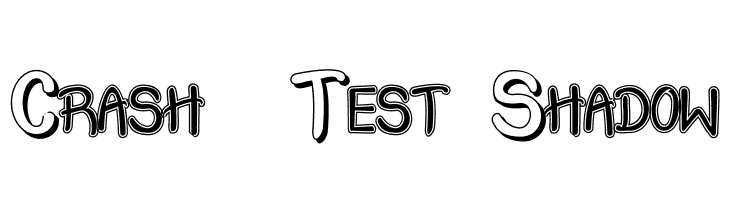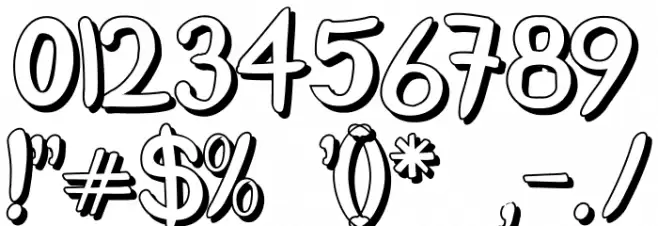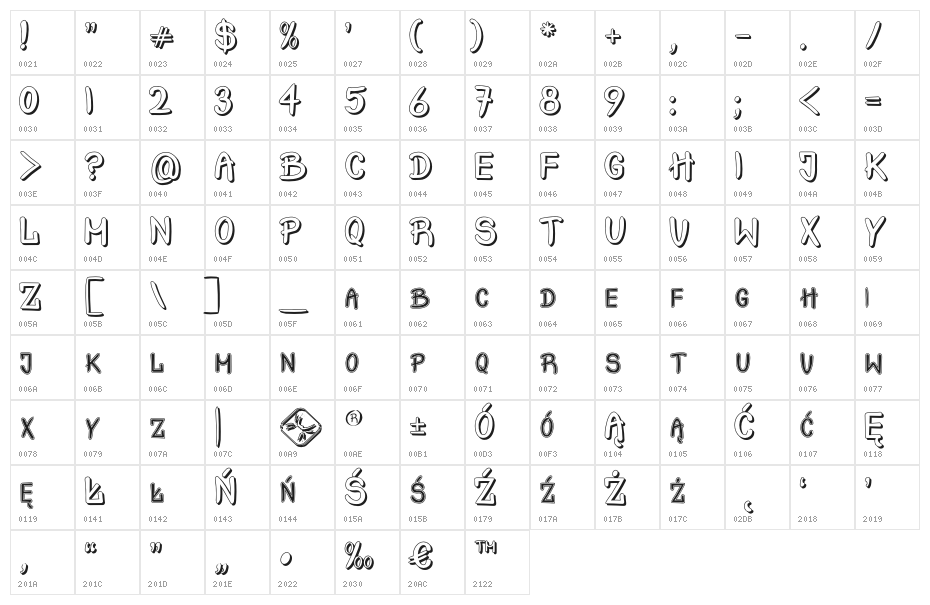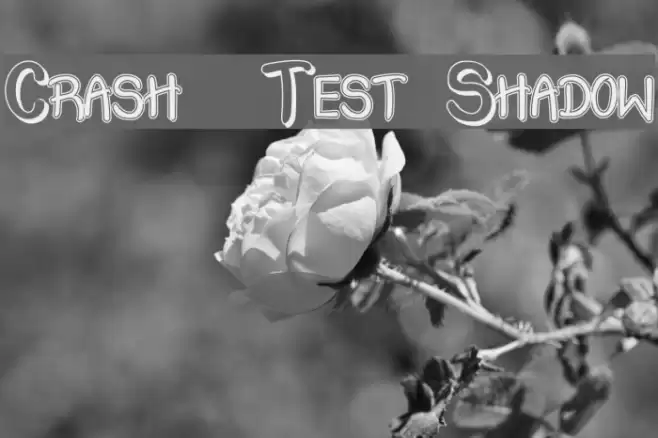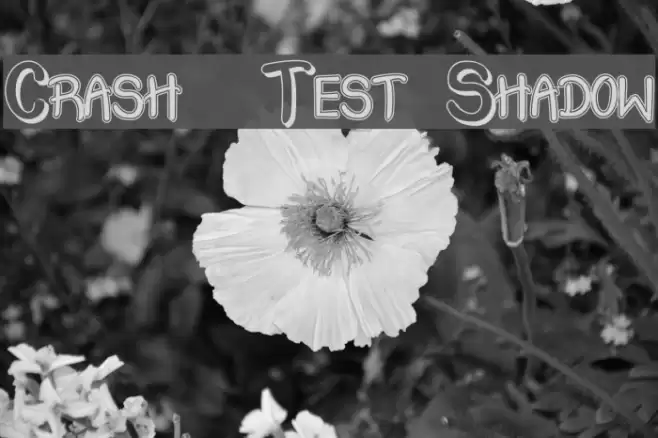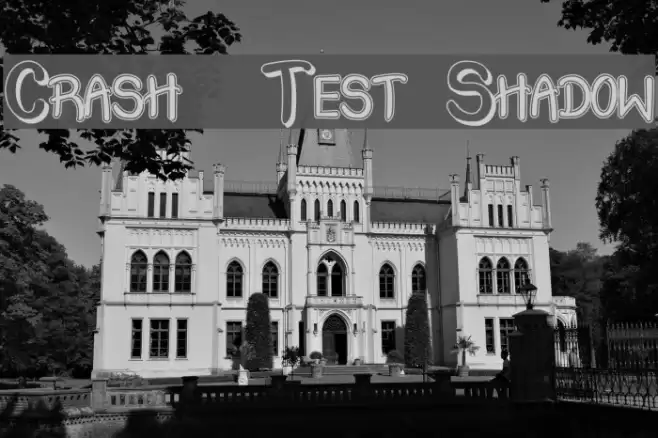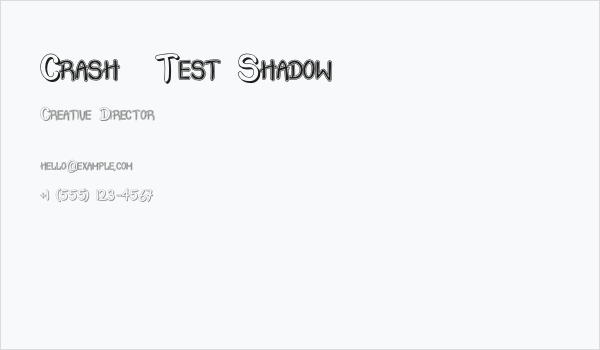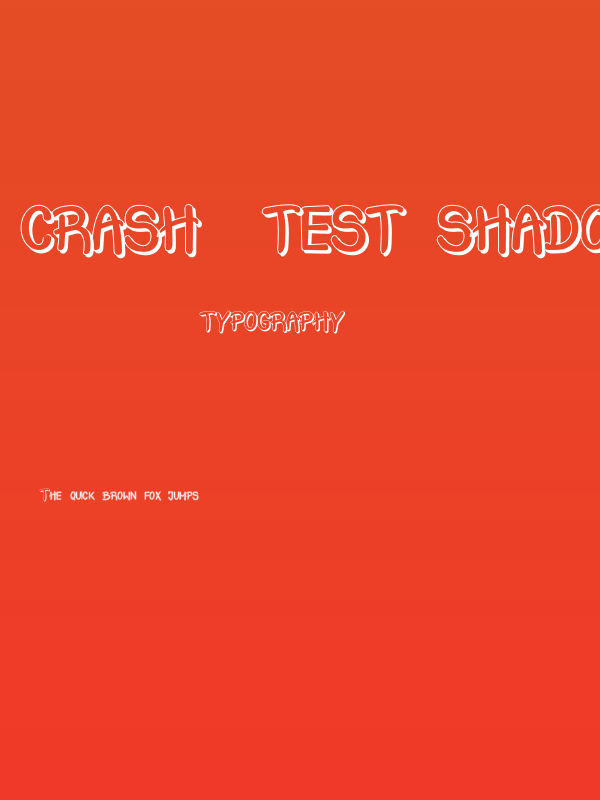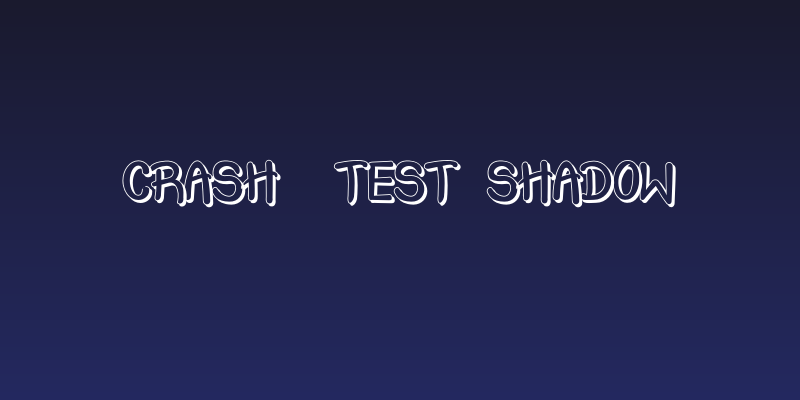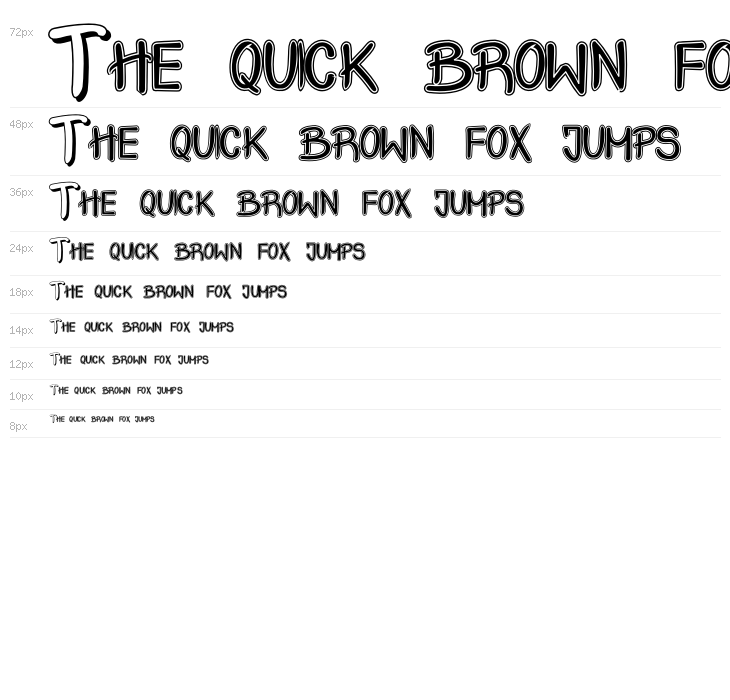
Crash Test Shadow Font
Crash Test Shadow Description
This font features a playful and bold design with a shadow effect that gives it a three-dimensional appearance. The characters are rounded and have a hand-drawn quality, making them appear friendly and approachable. The shadow adds depth, enhancing the visual impact of each letter and number. The font is consistent in style across uppercase, lowercase, and numerals, with special characters maintaining the same playful aesthetic. Its unique style makes it stand out, perfect for projects that require a fun and engaging look.
| Overall Style | Playful, Fun, Decorative |
| Proposed Projects | Ideal for children's books, comic strips, playful branding, and eye-catching posters. |